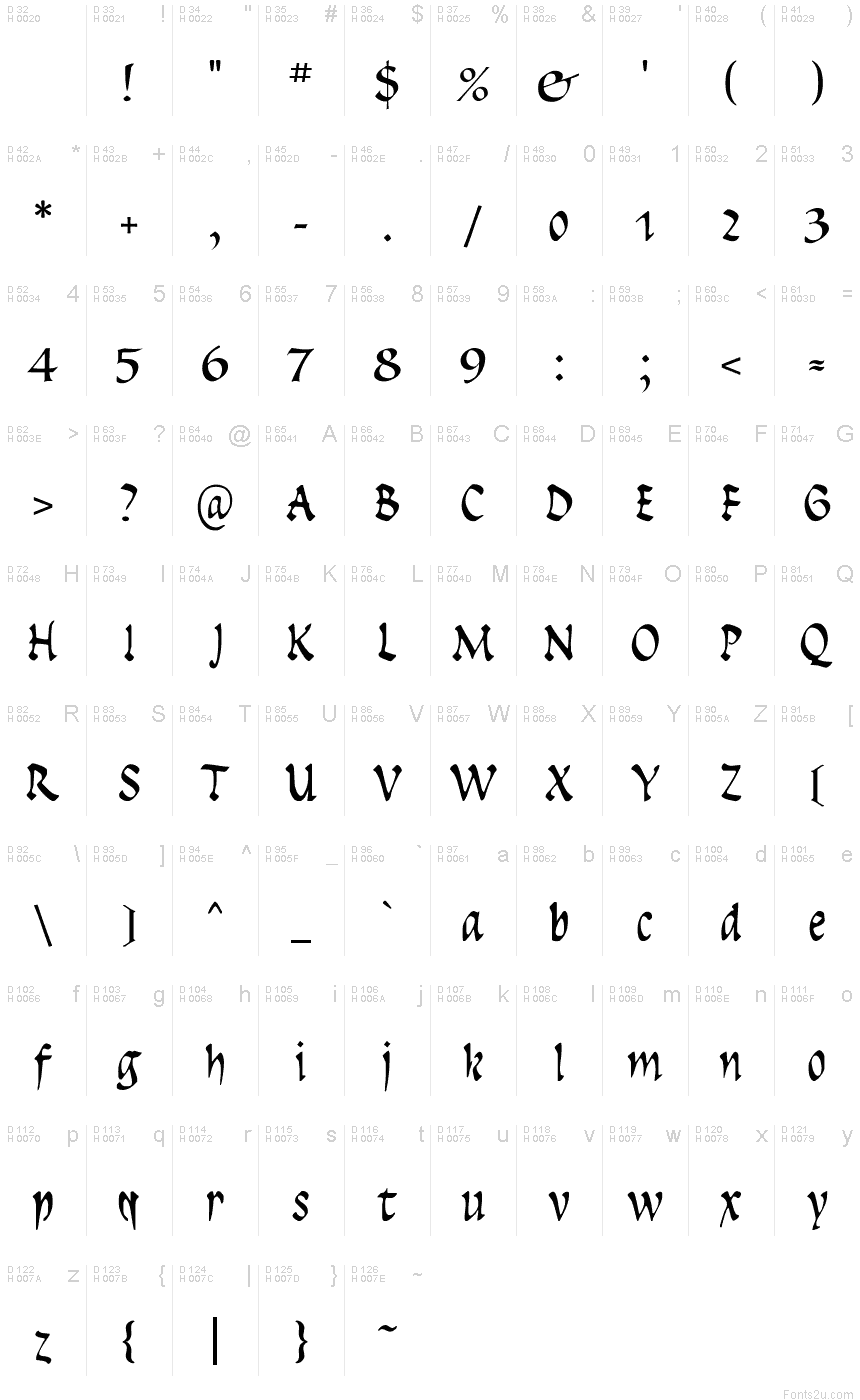
Insula
Insula font by Cybapee is a free retro display typeface with a dark, calligraphic twist. Its tall, tapering strokes and flicked, flame-like endings feel hand-drawn, like ink dragged across rough paper. The letters lean and sway just enough to feel alive, giving headlines a slightly eerie, old-world energy that sits somewhere between medieval script and underground gig poster.
Using Insula, you get a strong, moody texture that immediately sets a scene-great for fantasy book covers, RPG titles, gothic event posters, band logos, occult zines, and craft beer labels. The spacing is snug, so it shines in short phrases and bold wordmarks rather than long texts. For balance, pair this free font with a plain geometric sans in smaller sizes to handle dates, captions, or fine print.
This font is based on post-roman insular latin writing. It is one of the many transliterations that the lab has been offering of late in an attempt to avail a wider range of choices to the international user. This font contains support for Western European, Greek, Cyrillic, Turkish, Baltic, and Central European languages. The concept and design of this font were aided by the following books: Keith Sidwell, Reading Medieval Latin - Hrotswitha, Dulcitius and Paphnutius, ed. Paul Pascal - Waltharius, ed. Gernot Wieland - Leo F. Stelton, Dictionary of Ecclesiastical Latin. Peace.